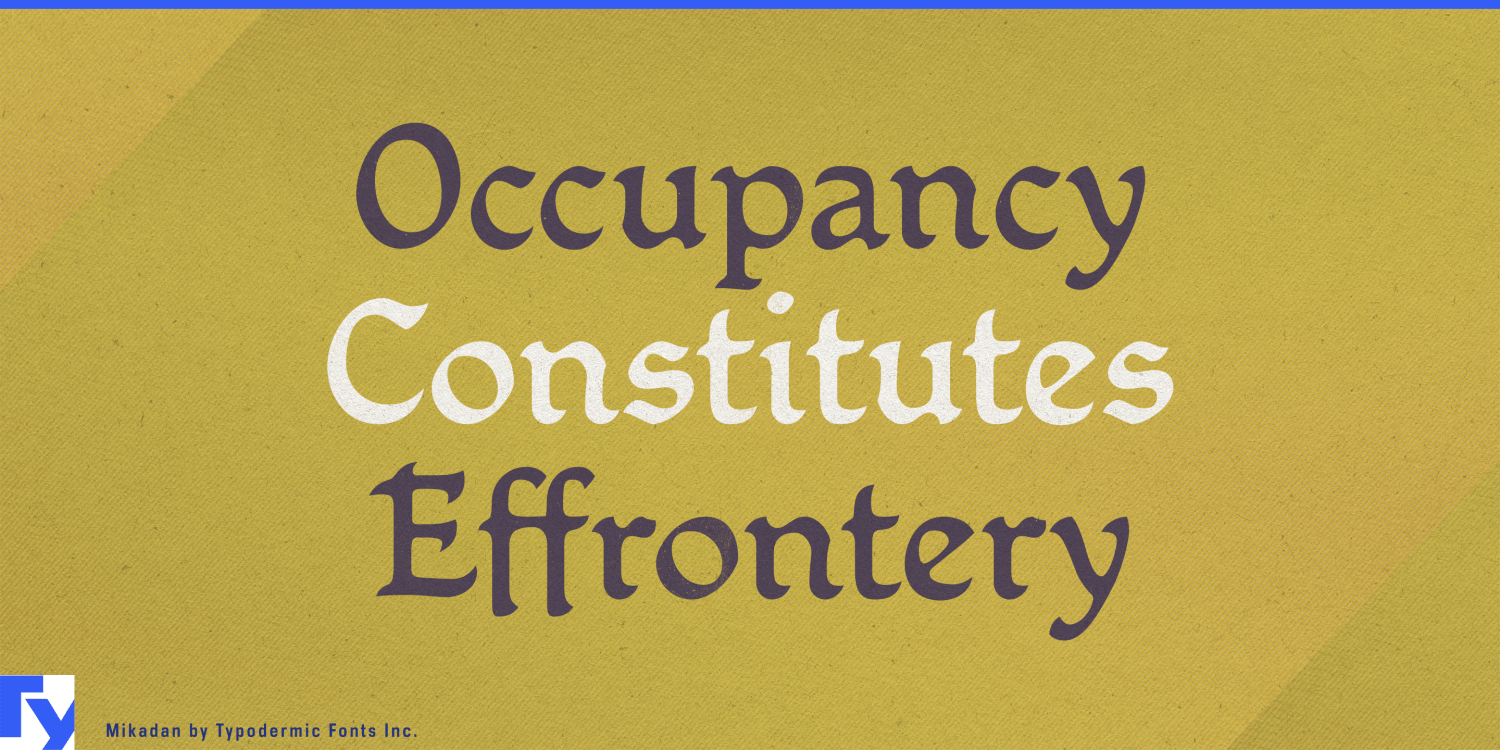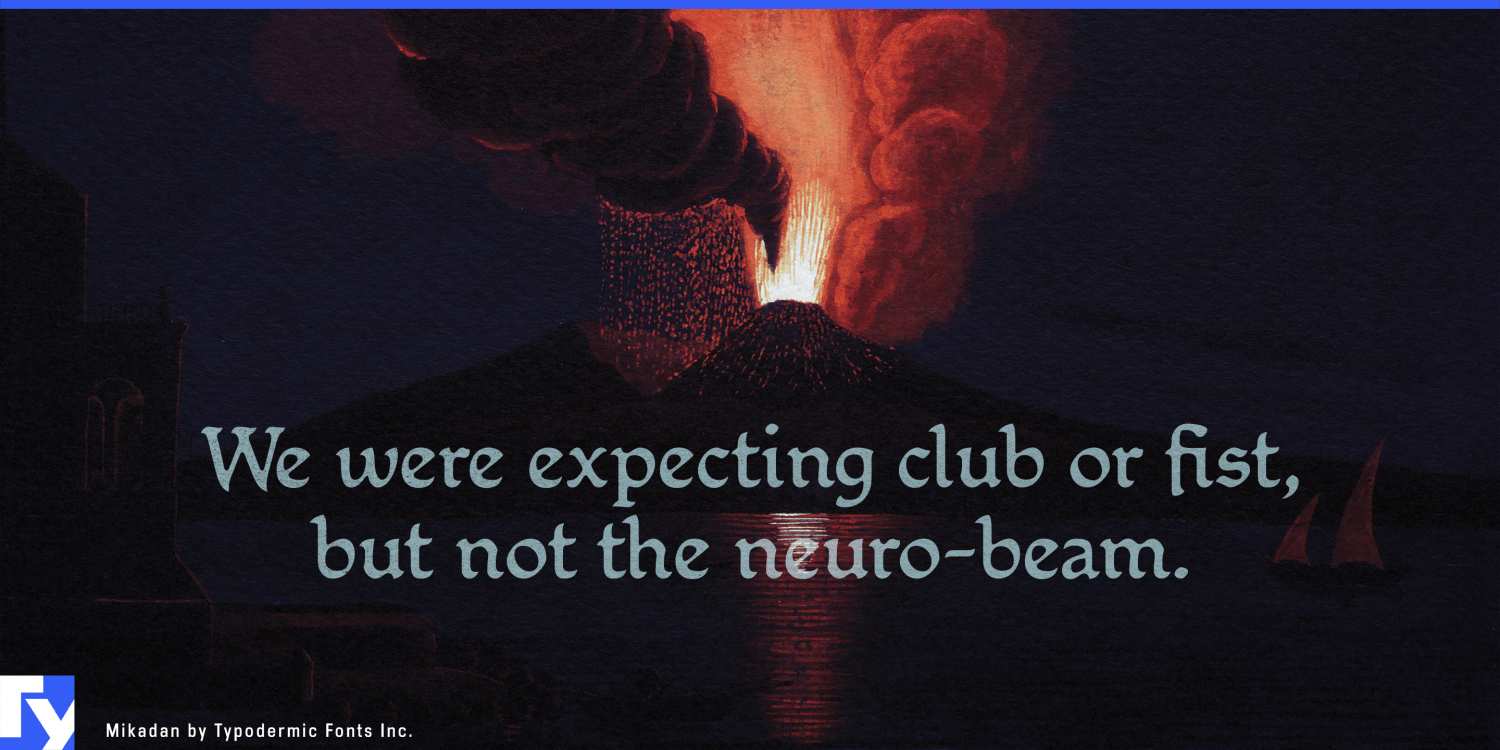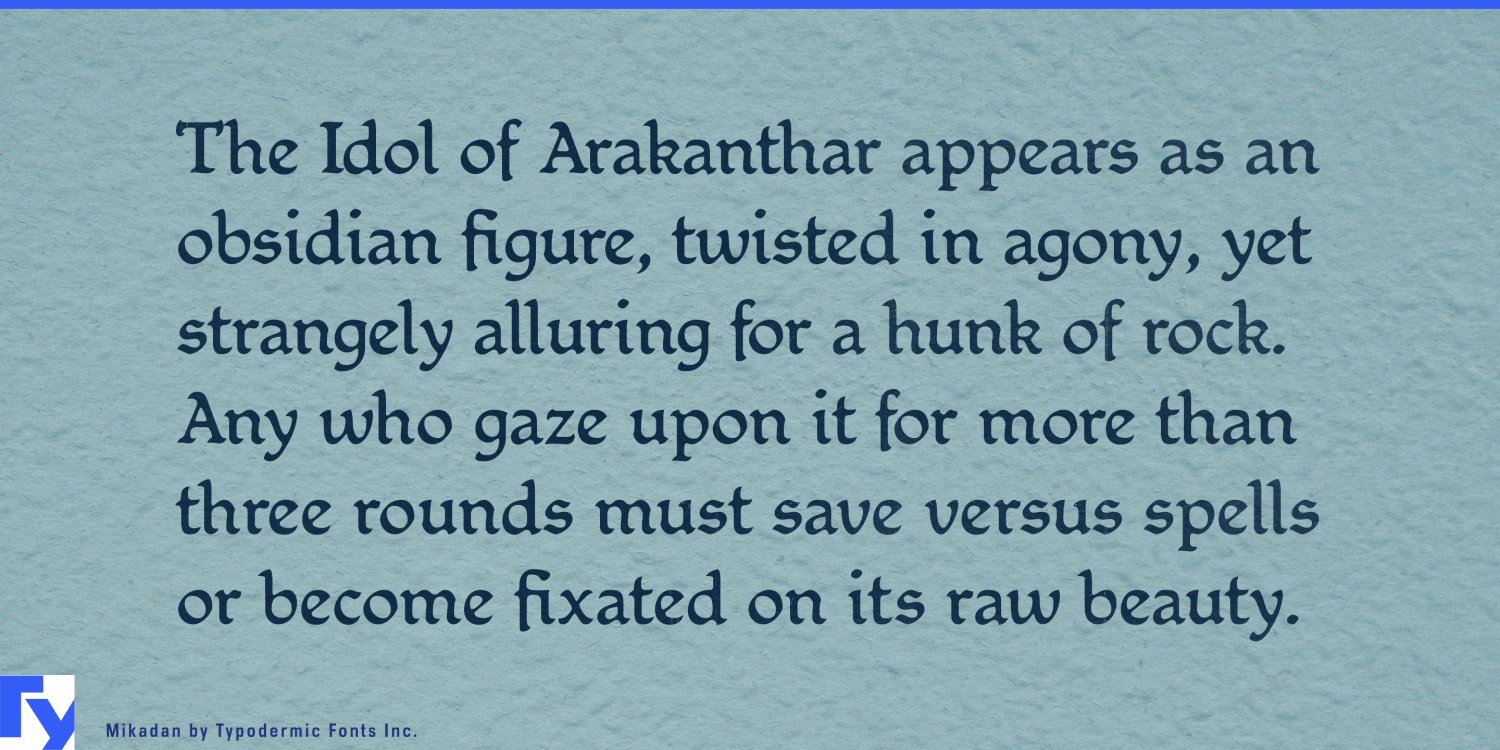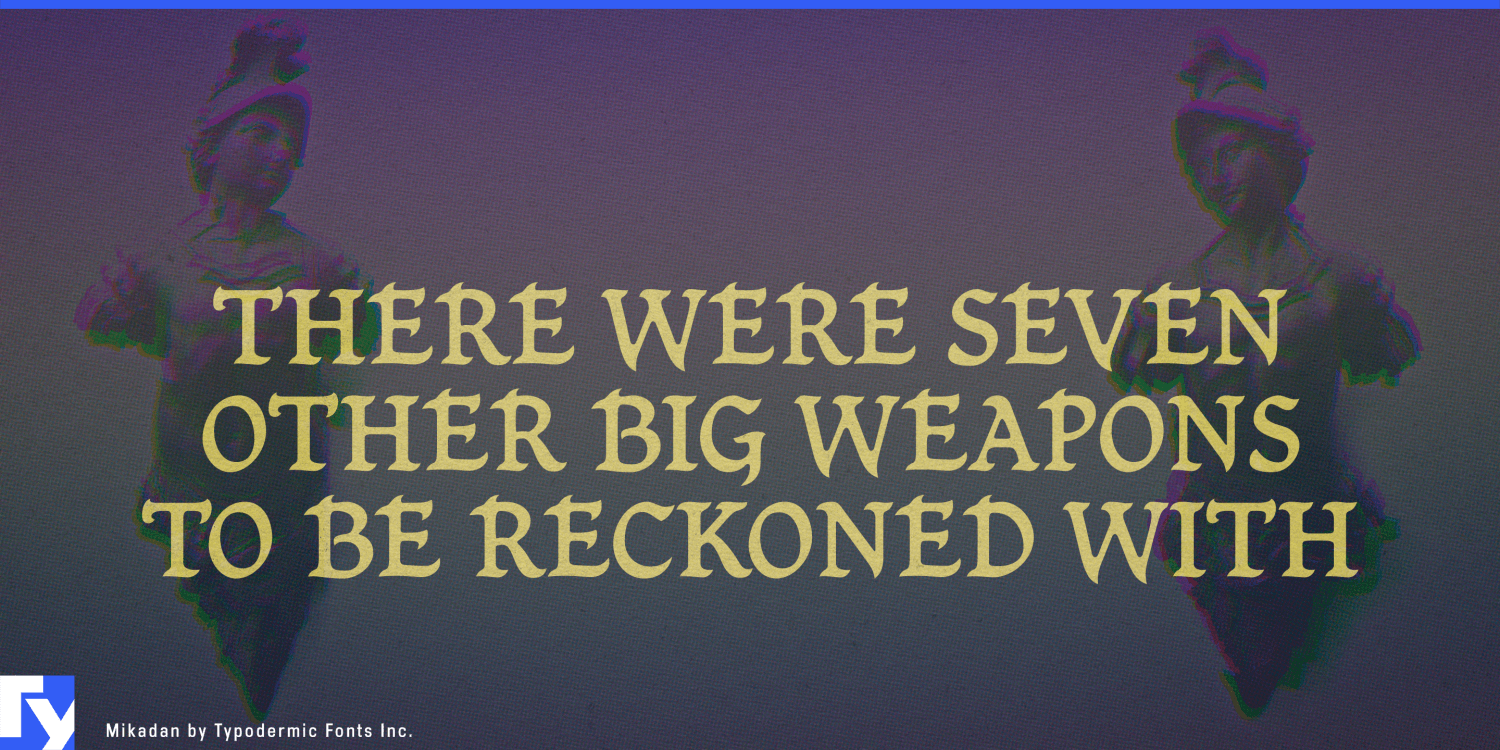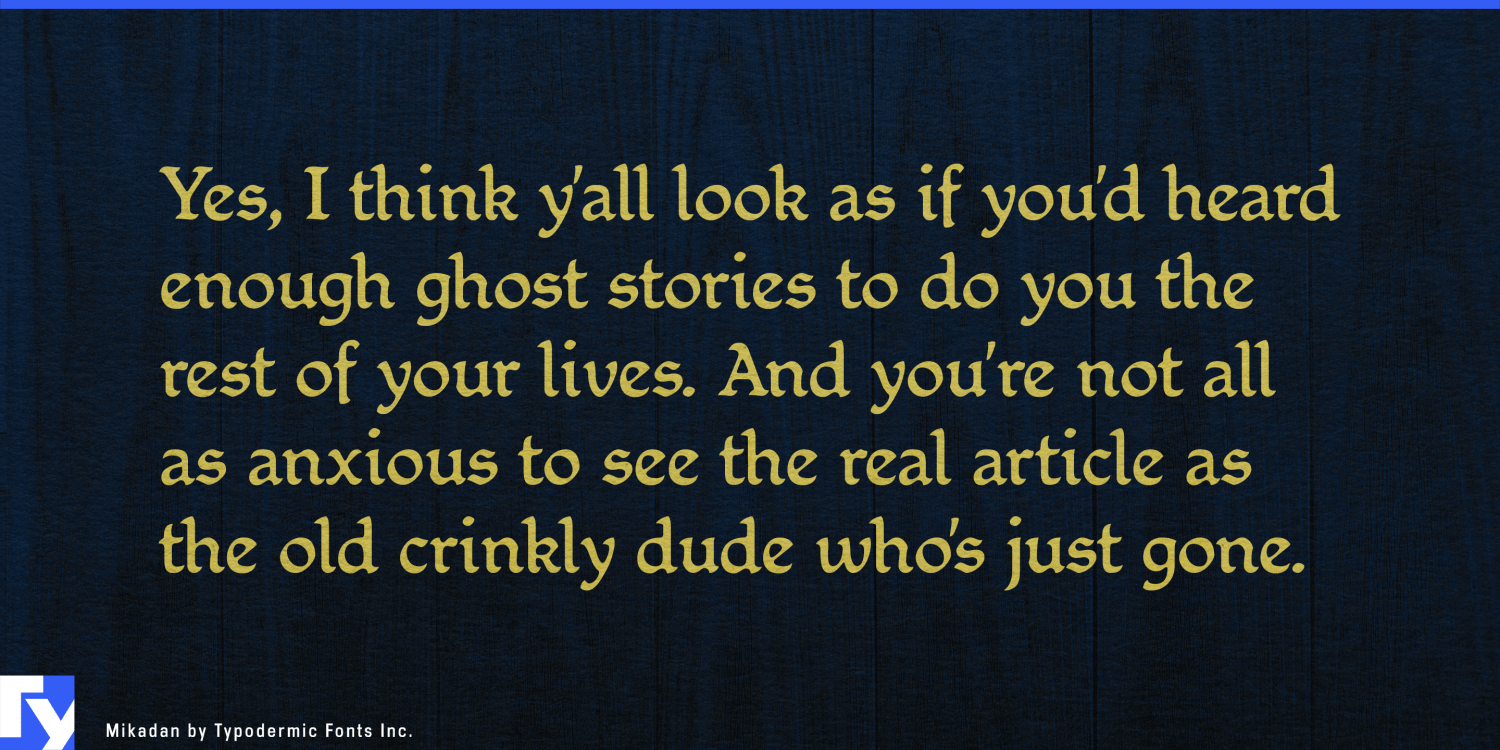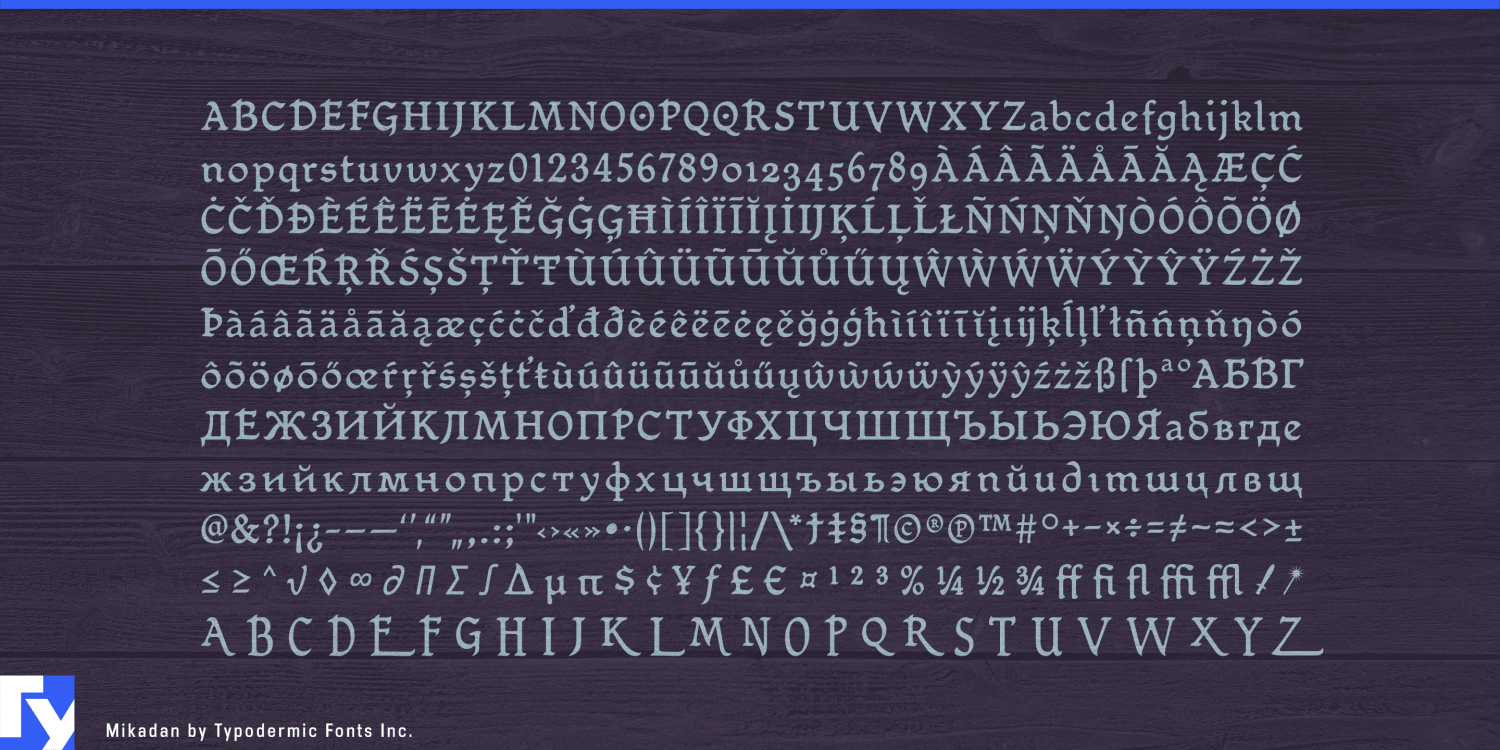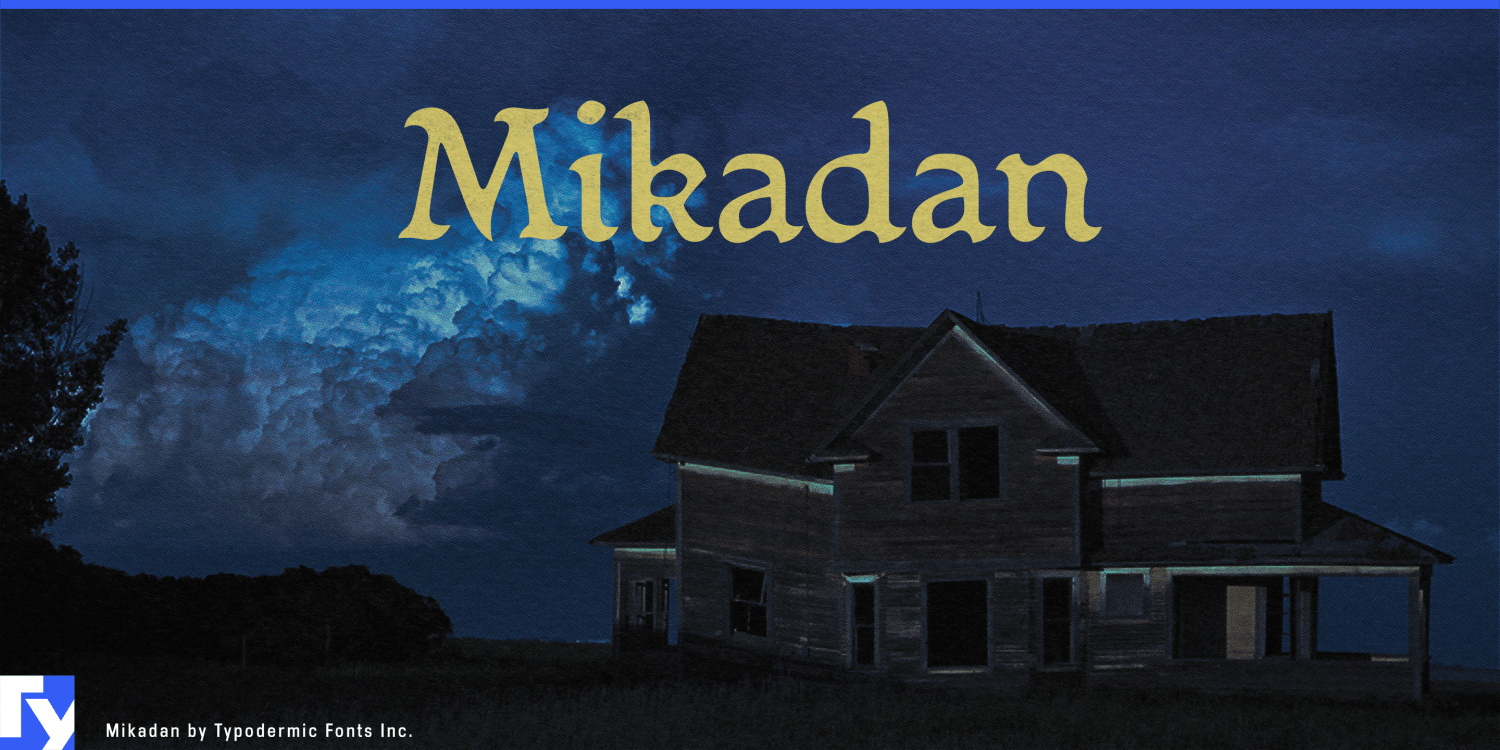
Mikadan
About Mikadan
Harken, ye designers and scribes of the digital realm! Behold Mikadan, a typeface that bridges the chasm between ancient lore and modern craft with the finesse of a master swordsmith. This is no ordinary font, but a mystical fusion of medieval majesty…